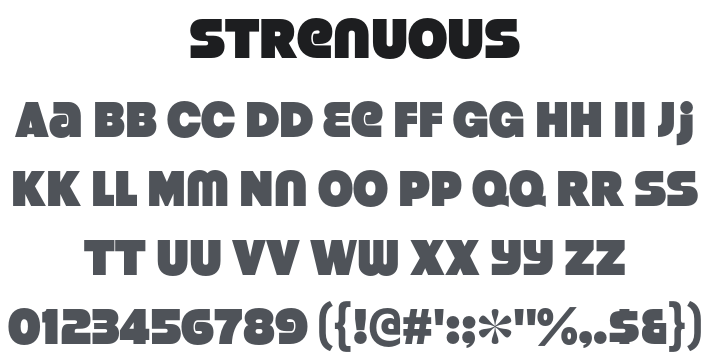
Strenuous Font Family
• Strenuous Black
• Strenuous 3D
About Strenuous
Strenuous brings the bold spirit of 1970s film posters into a modern, versatile headline typeface. Its unicase design merges upper and lowercase forms for a strong, unified voice, while alternates let you adjust rhythm and attitude. Eight weights with italics range from lean to heavyweight, maintaining compact geometry and confident curves that recall vintage marquees and sports lettering. Built for presence and clarity, Strenuous excels in posters, titles, packaging, and branding that need to stand out with character. Retro in tone yet engineered for today’s media, it delivers typography that commands attention.